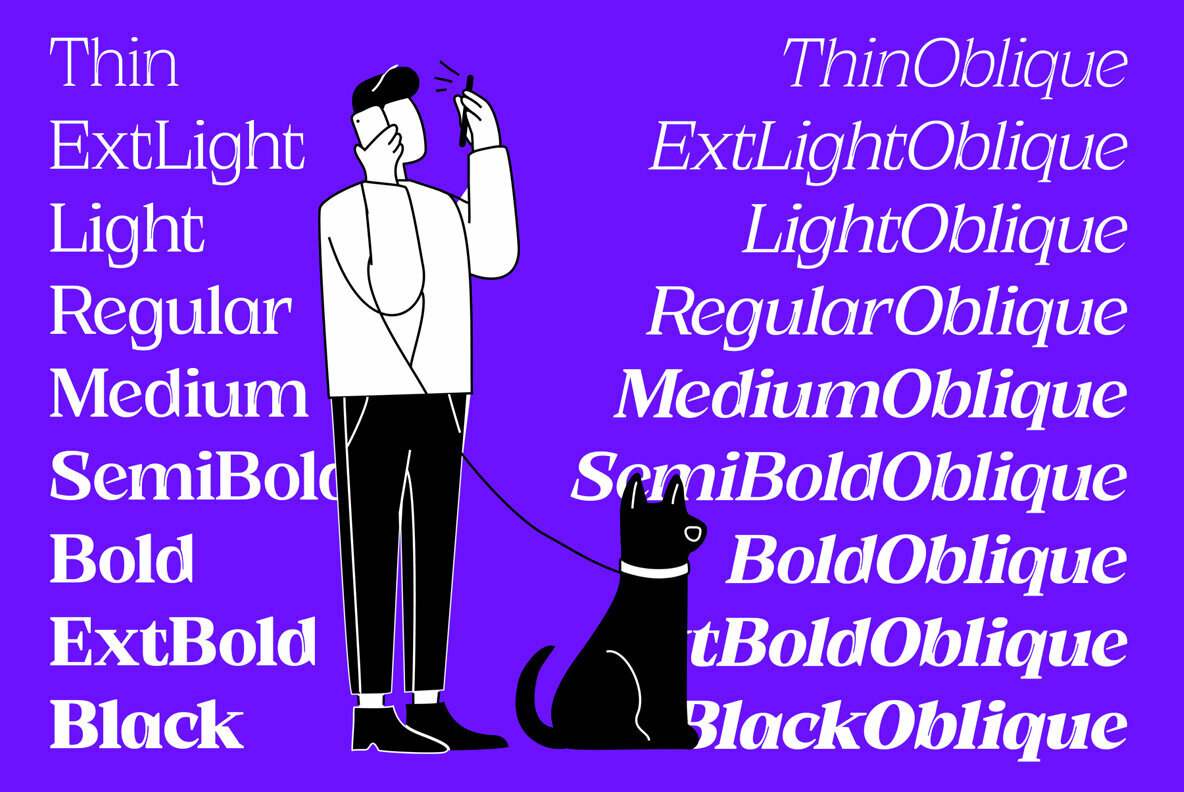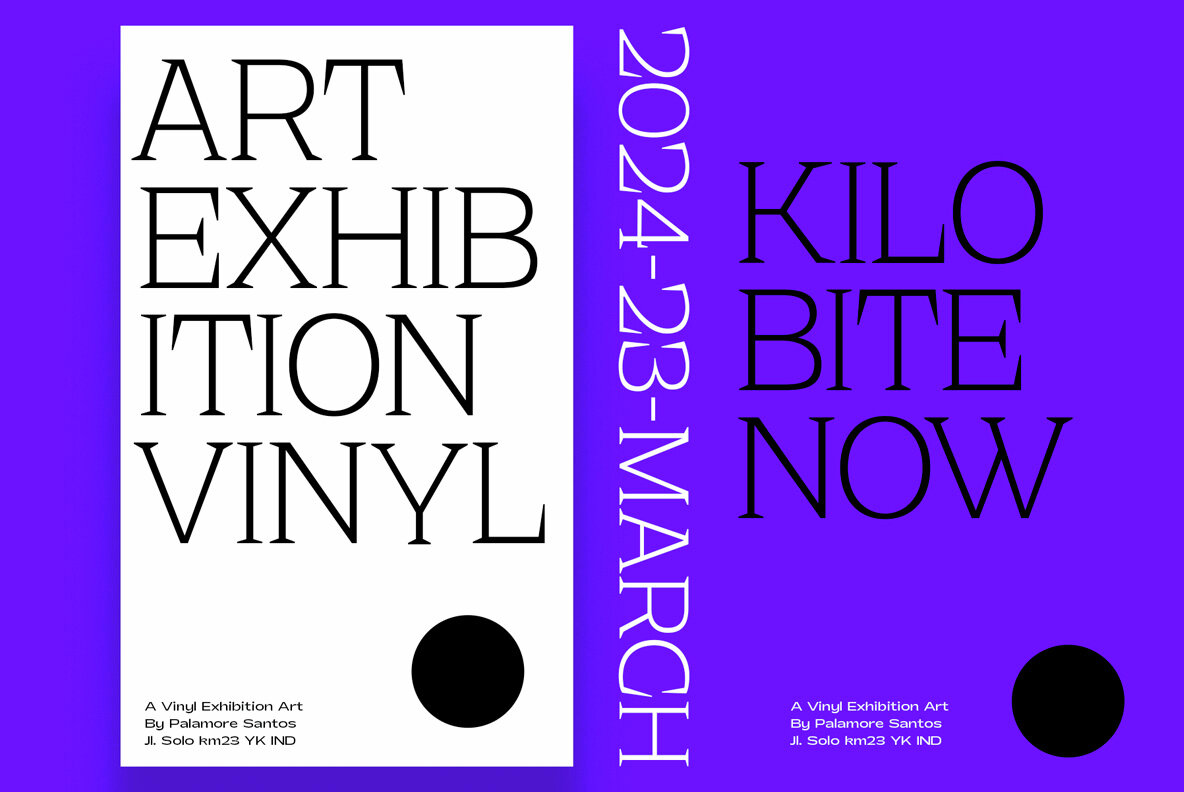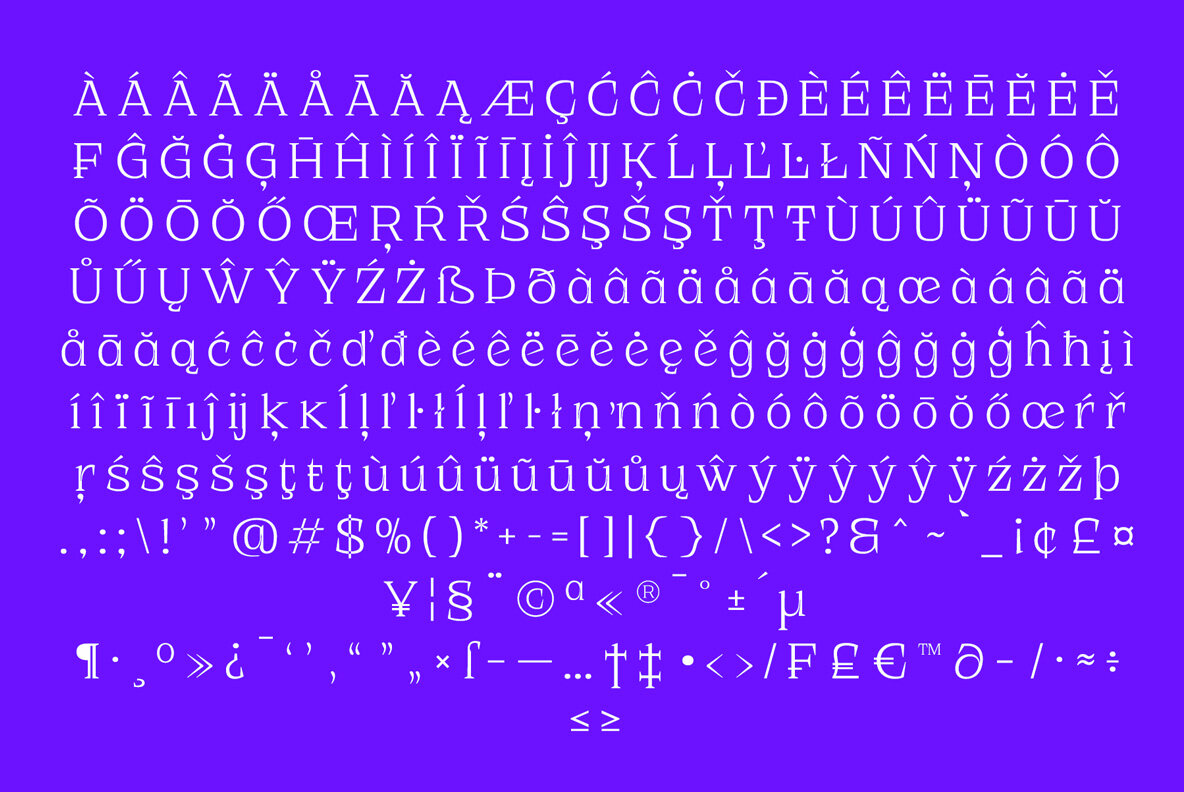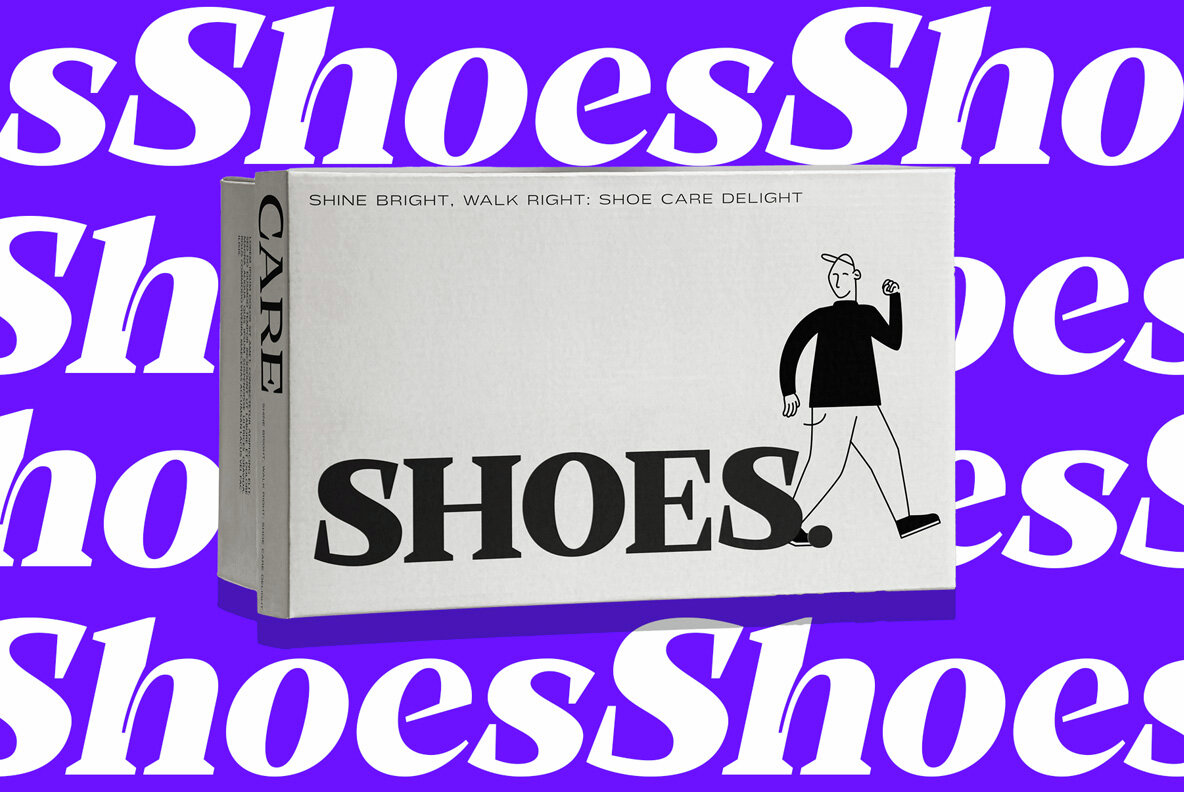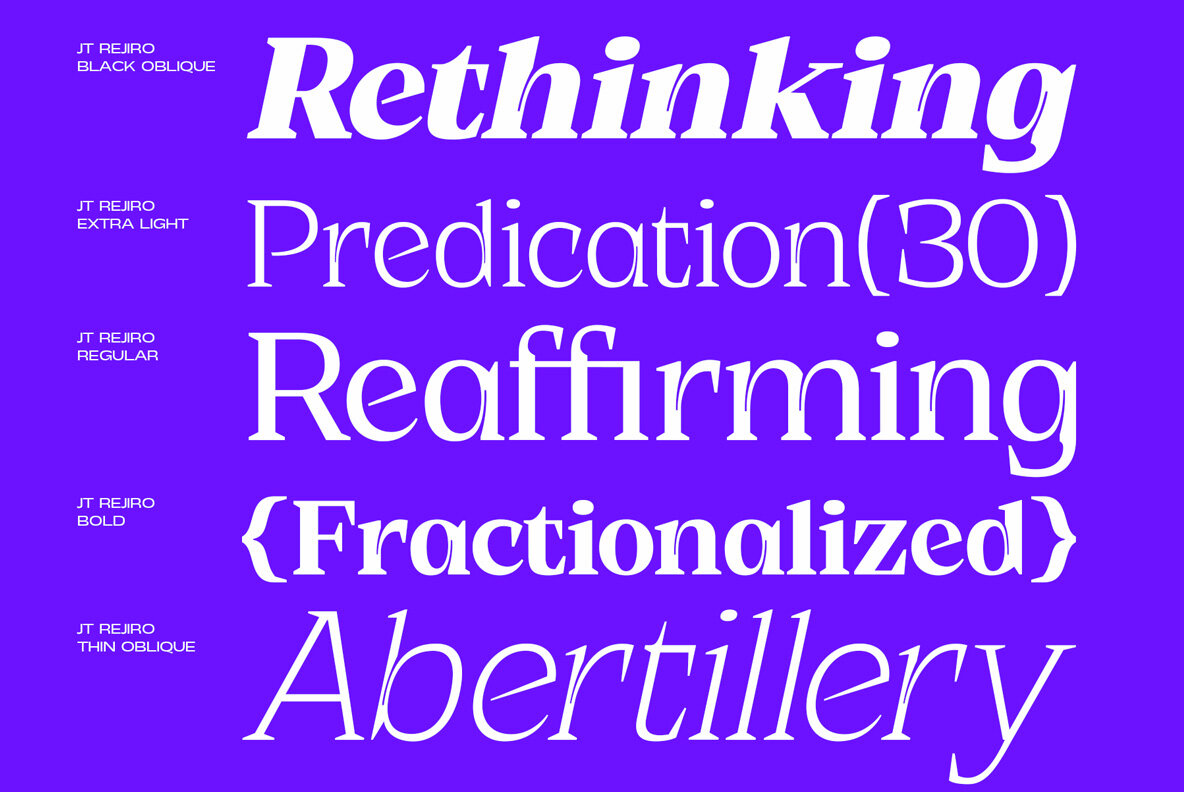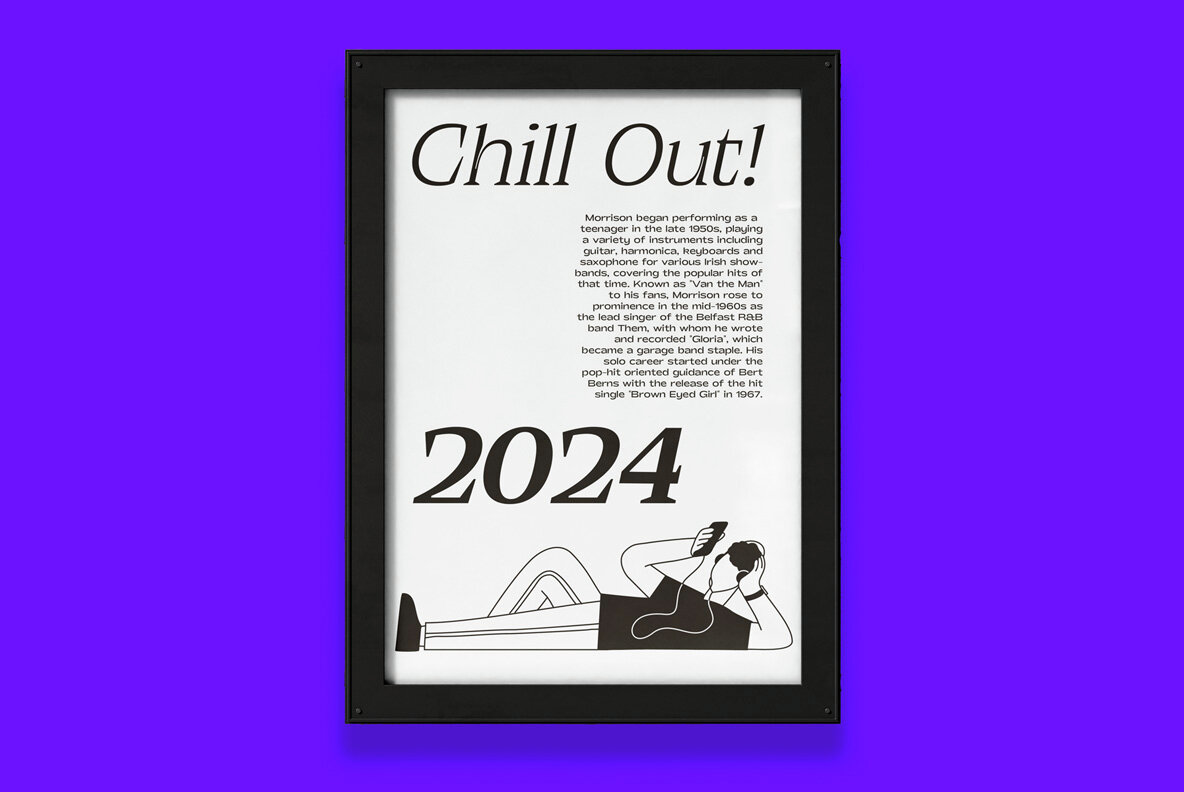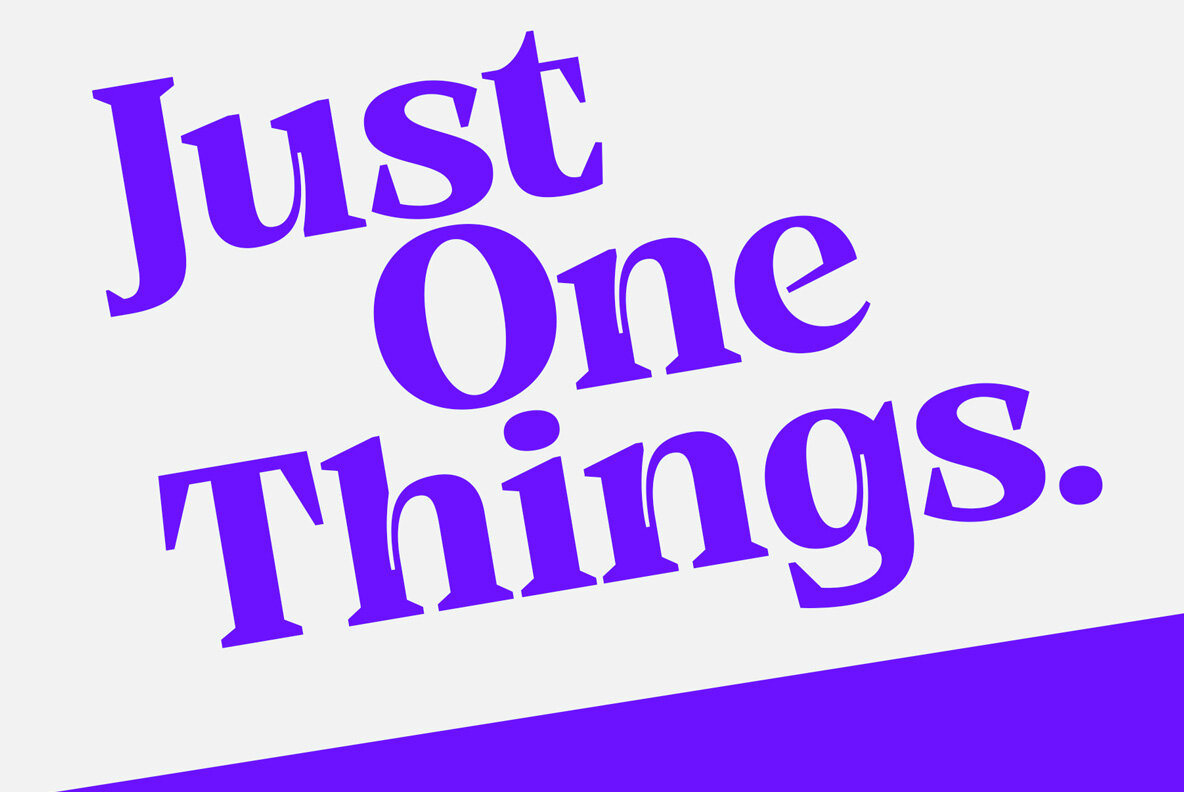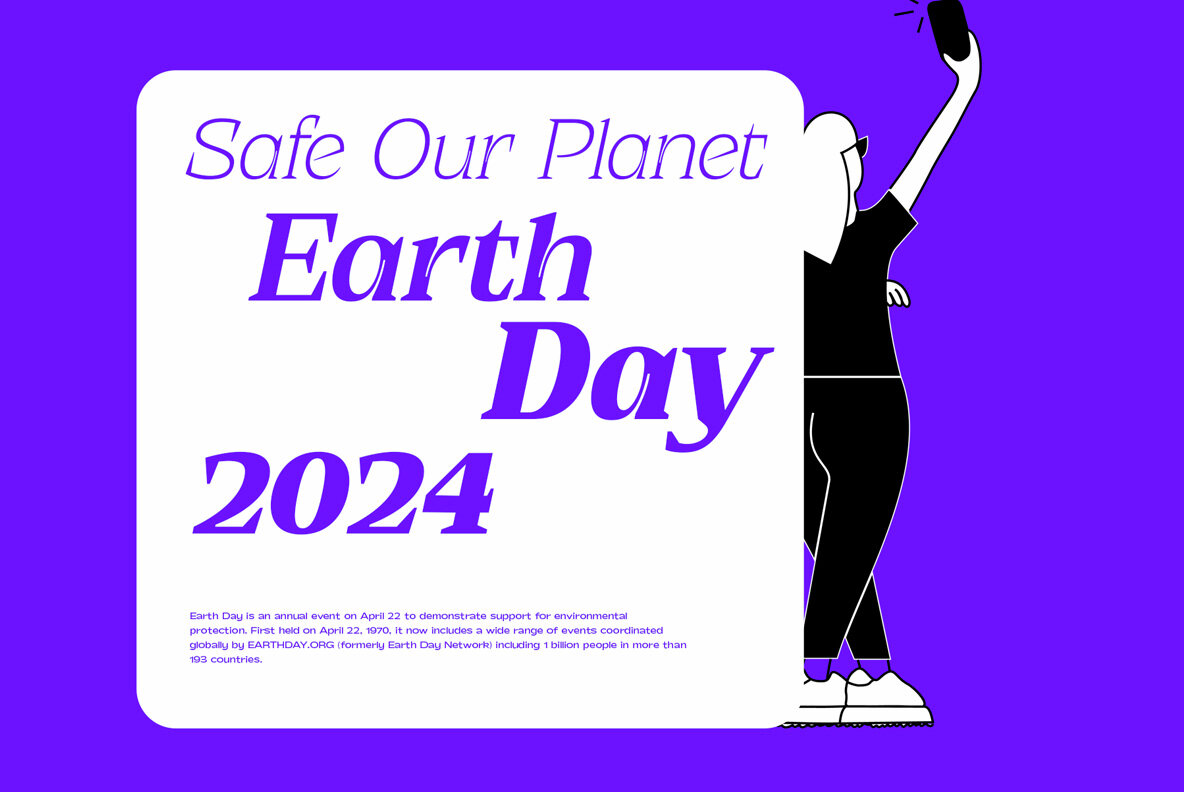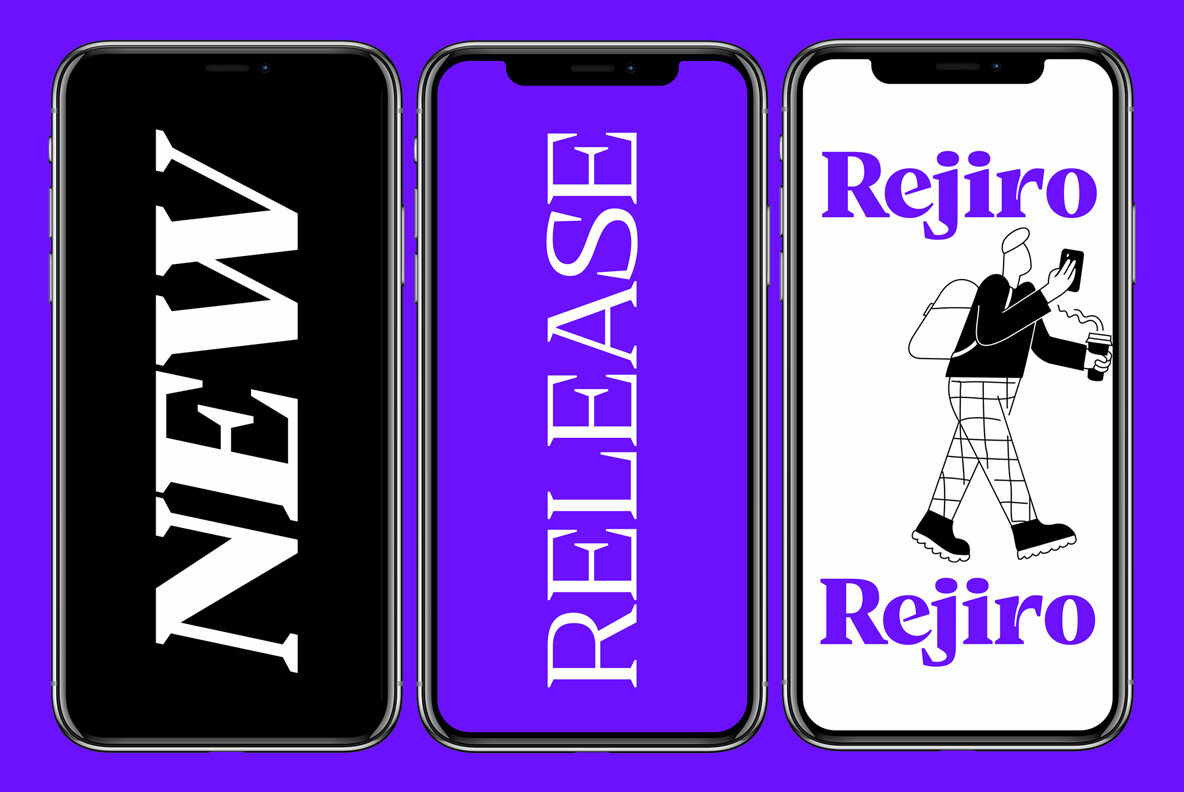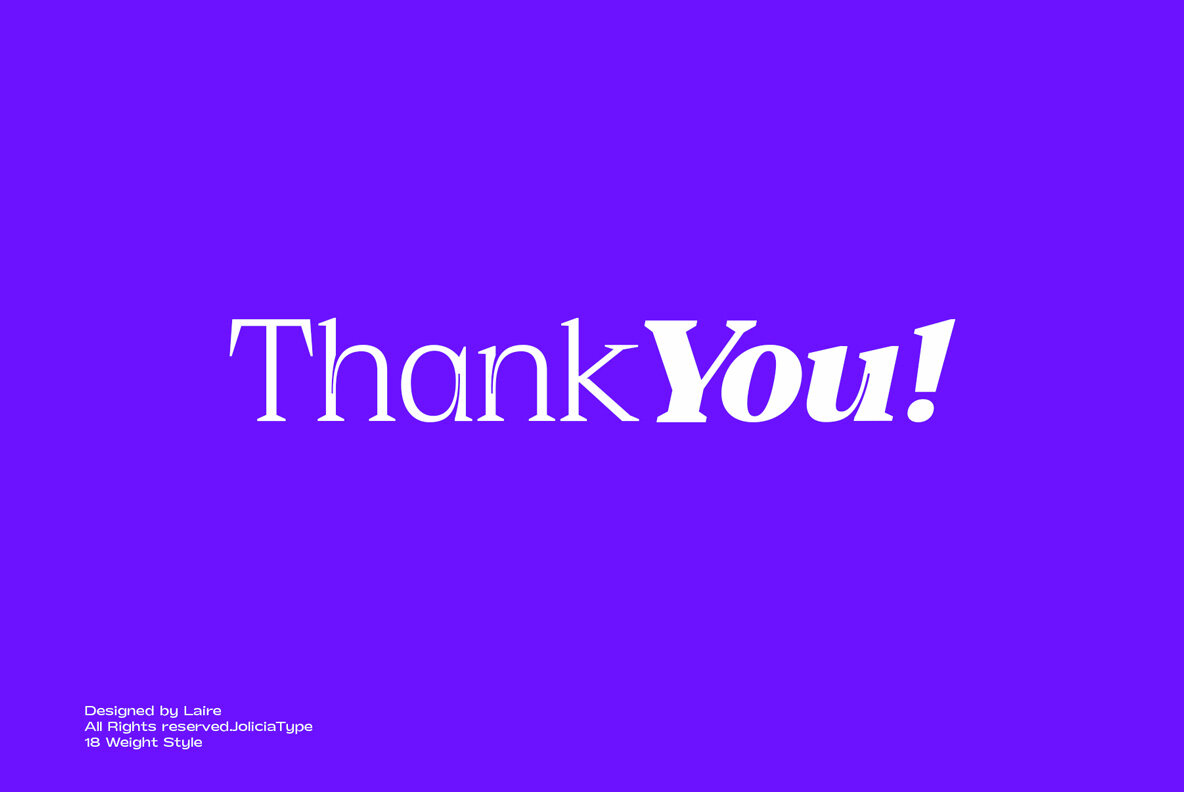
JT Rejiro Font
JT Rejiro is a distinctive serif font featuring a sharp, pointed design that conveys a bold and unique visual impression. Available in 18 weight styles ranging from Thin to Black, with each style also offered in an Oblique type, this font brings a cohesive and strong aesthetic to any project. Its letter anatomy includes pointed ends and extreme inktraps at thick stem junctions, giving it a character that stands out from other serif fonts.
With a comprehensive suite of 348 glyphs, JT Rejiro supports 92 languages, making it exceptionally versatile for international use. This font is ideal for designers looking to add a touch of sharp elegance and strength to their typography.